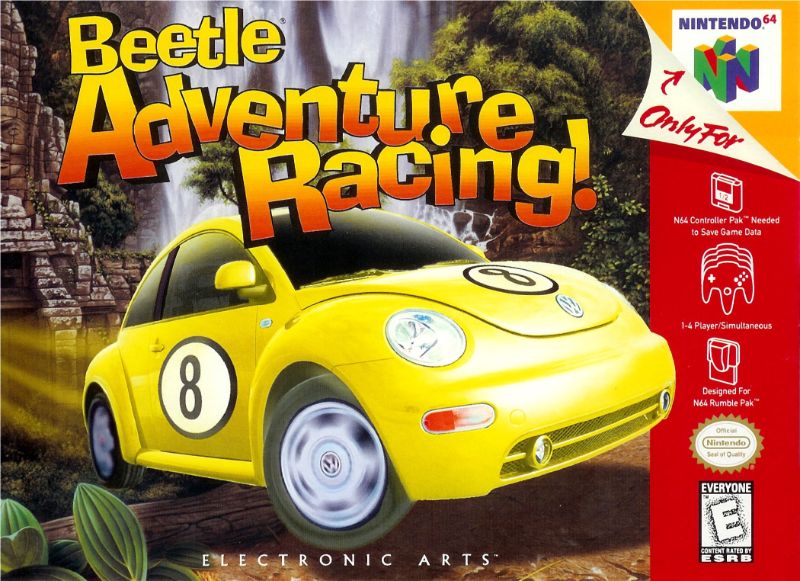
Beetle Adventure Racing Font
Fonts in UseBeetle Adventure Racing! is a racing video game released for the Nintendo 64 in 1999. It features Volkswagen New Beetles as playable vehicles and a variety of race tracks inspired by real-world locations.
Ad Lib, a decorative font known for its round characters with squarish counters, was selected as the title typeface for the video game. The Nintendo 64 logo, positioned on the top right of the game's artwork, was created using a blend of Myriad Black and Univers Extra Black fonts.